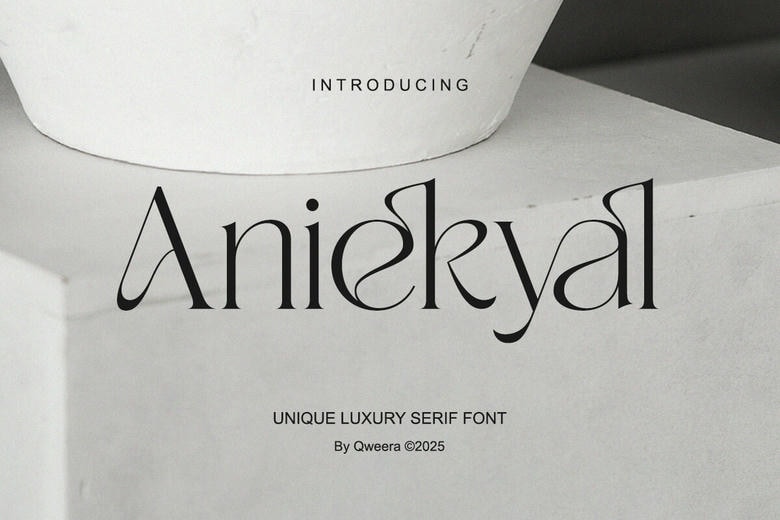
Aniekyal Font
Aniekyal is a luxury serif font, a unique typeface, which is a combination of new style and classic beauty. Aniekyal is designed with distinct letterforms, fashionable substitutes and polished ligatures to provide high-end aesthetic to creatives who value exclusivity in their design undertakings.
Aniekyal is perfect in its luxury branding, fashion magazines, wedding stationery, logos, product packaging, and editorial layouts, and it does not lose its bold yet elegant nature. The smooth information and designed curves ensure its suitability in showing headlines as well as finely created typographies.
Aniekyal Serif Font